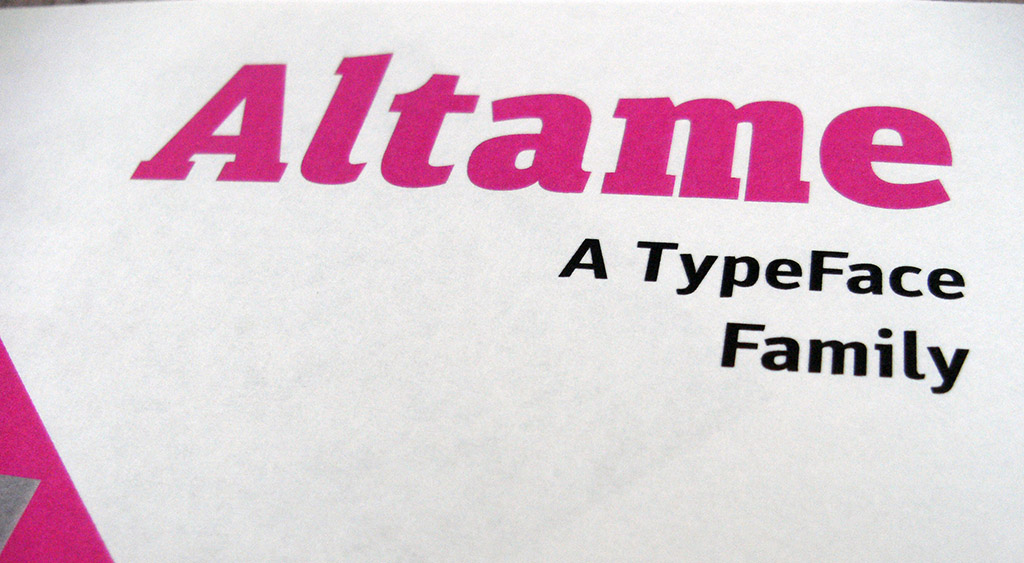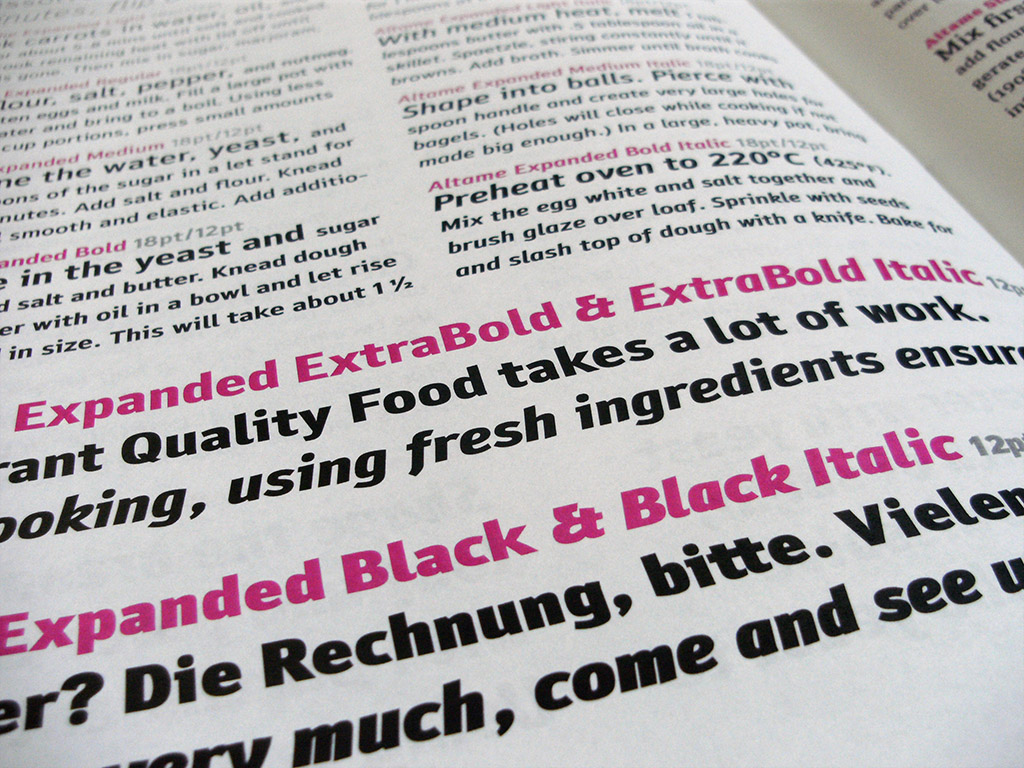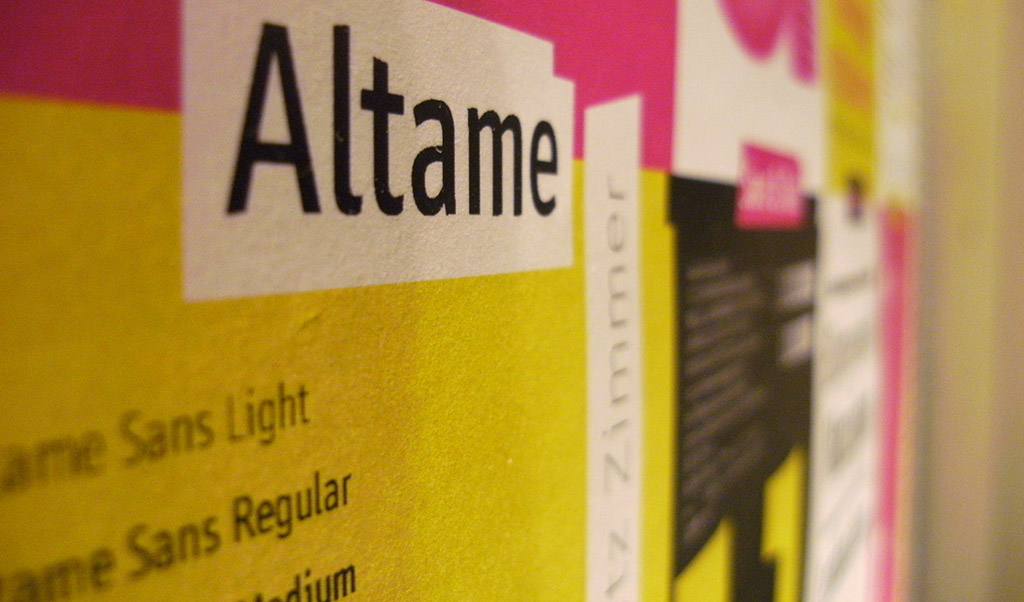
The Altame Family
Typeface Created June 2015, last updated 01 September 2021 Altame was devised as the home type- face for a website and blog project in early 2015, and has since evolved into a family with different styles and weights. It was designed to get a lot of text in relatively small spaces on screen, while maintaining a certain look and feel: Something that is contemporary—not timeless. Functional, condensed, square, a little German, and legible. (read more here)
Let's talk italics! I was not particularly interested in making an italic version for this typeface at first. If I needed an italicized font, I would just oblique it. But once I did start to play around with the idea of an italic, what a great opportunity it was to add another voice to the Altame Family! If the purpose of any italic is to add noise, differentiation and contrast to a text, I decided to take it as an opportunity to play around with shapes that make Altame even squarer (without outright doing so), and elaborate on some of the ideas in some of the shapes.